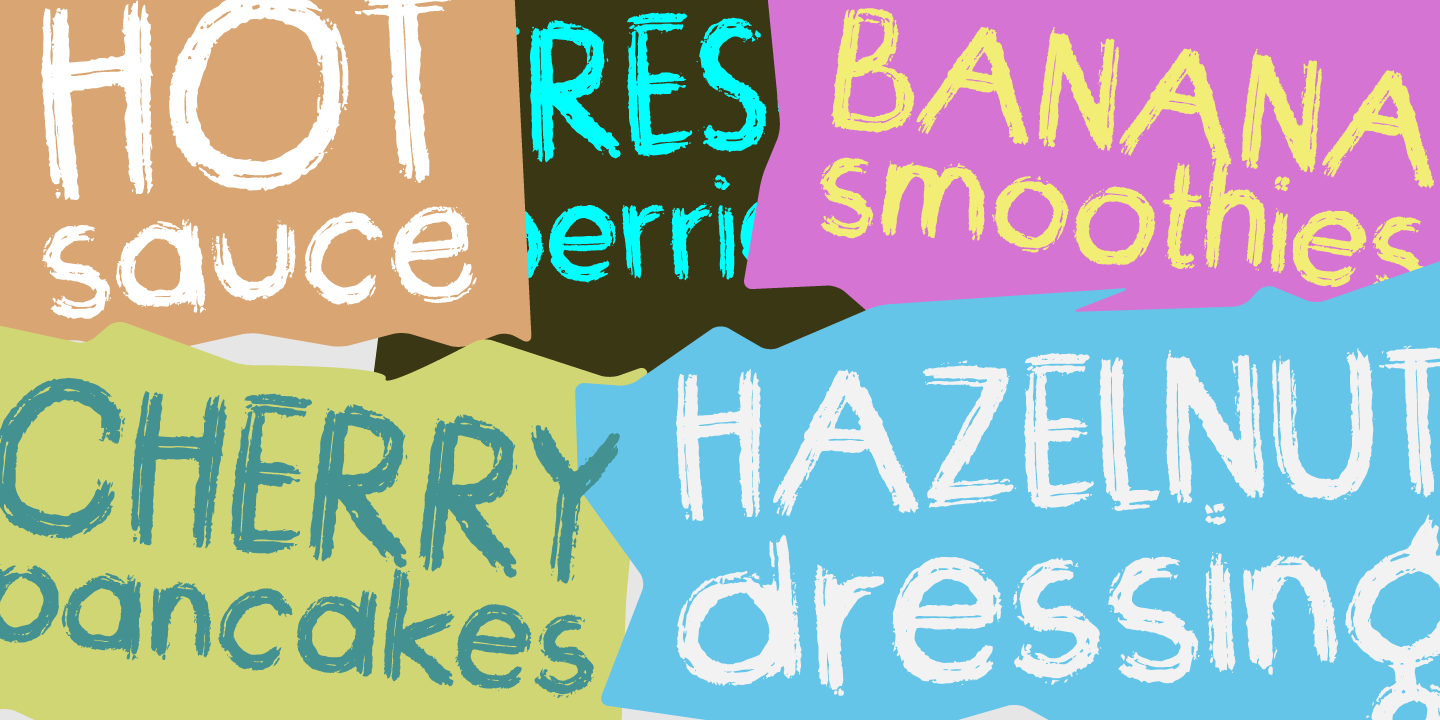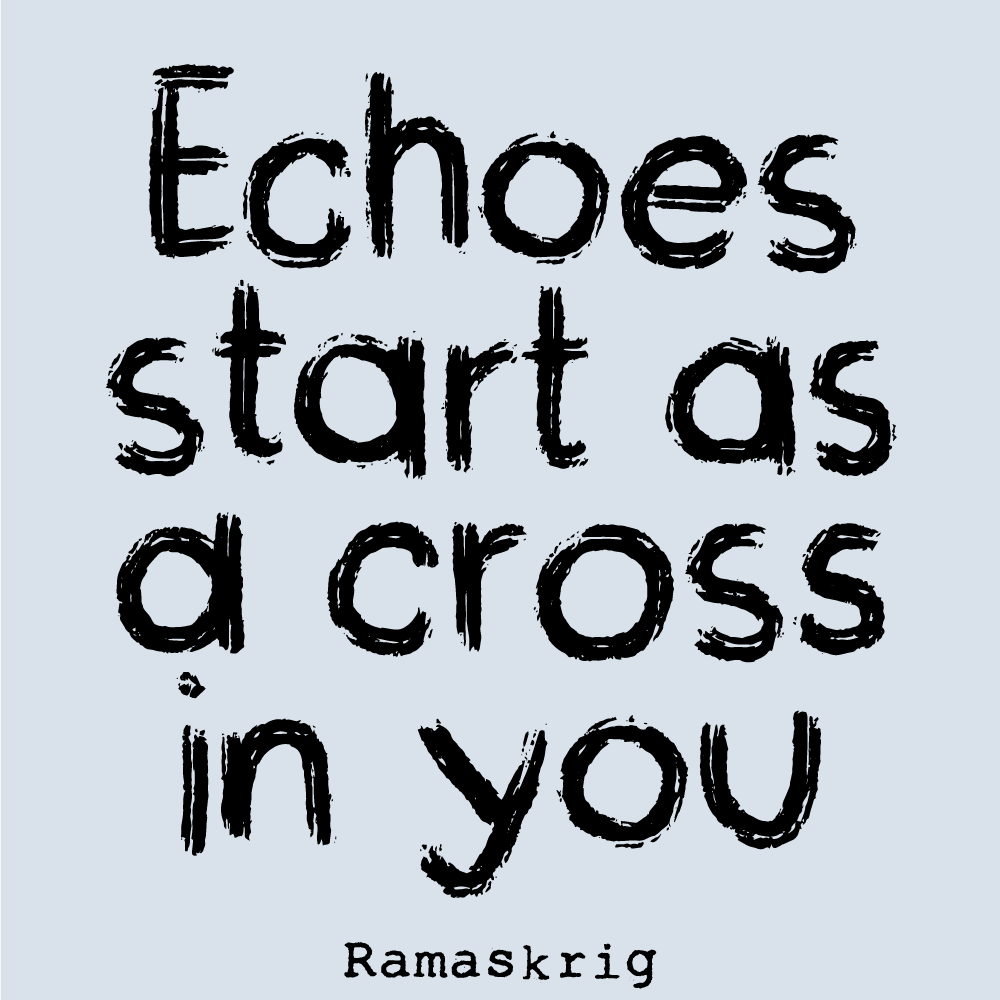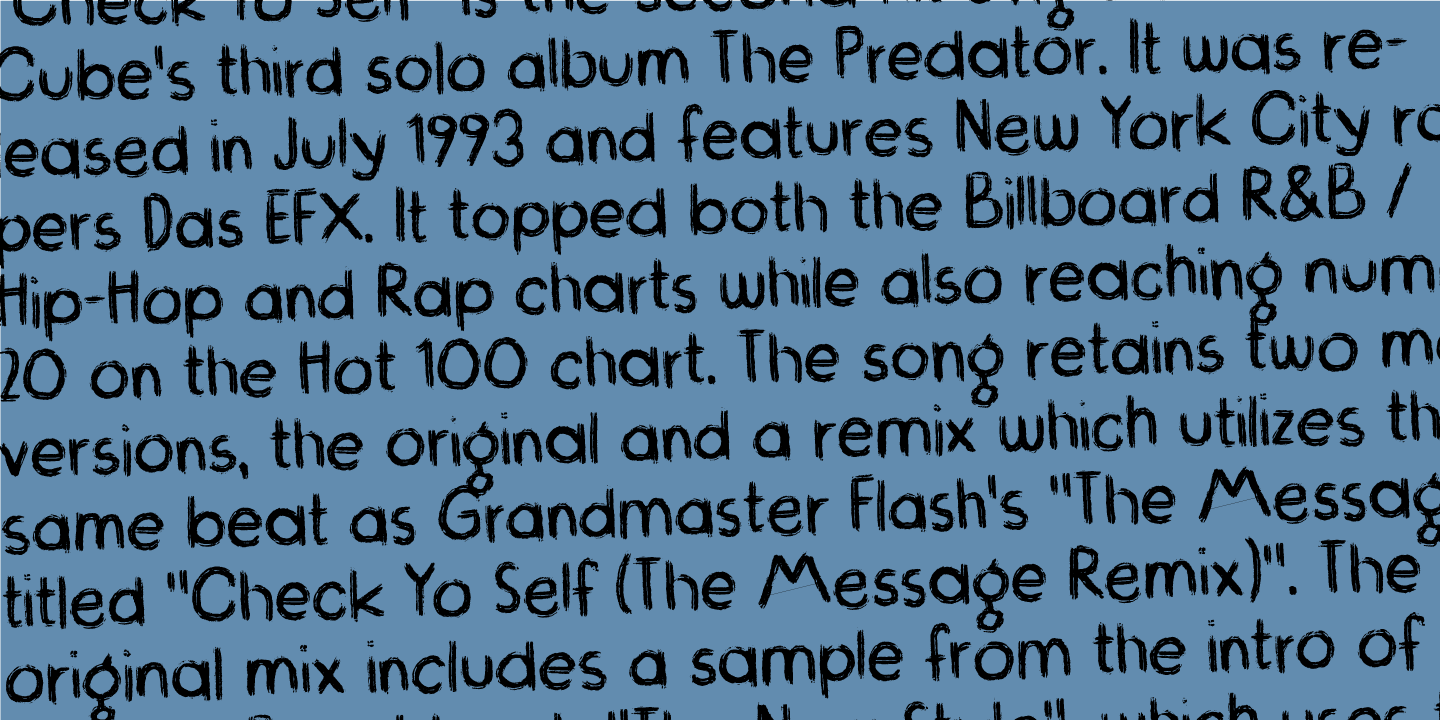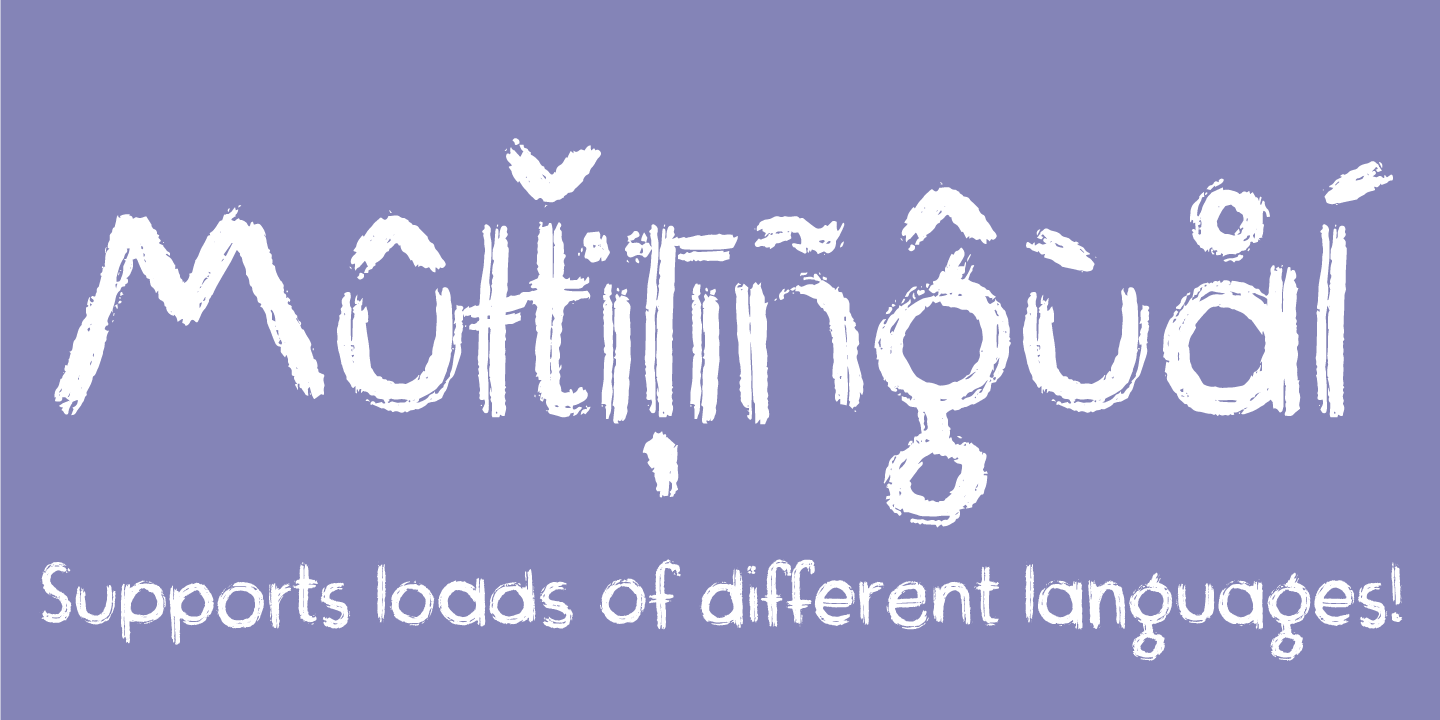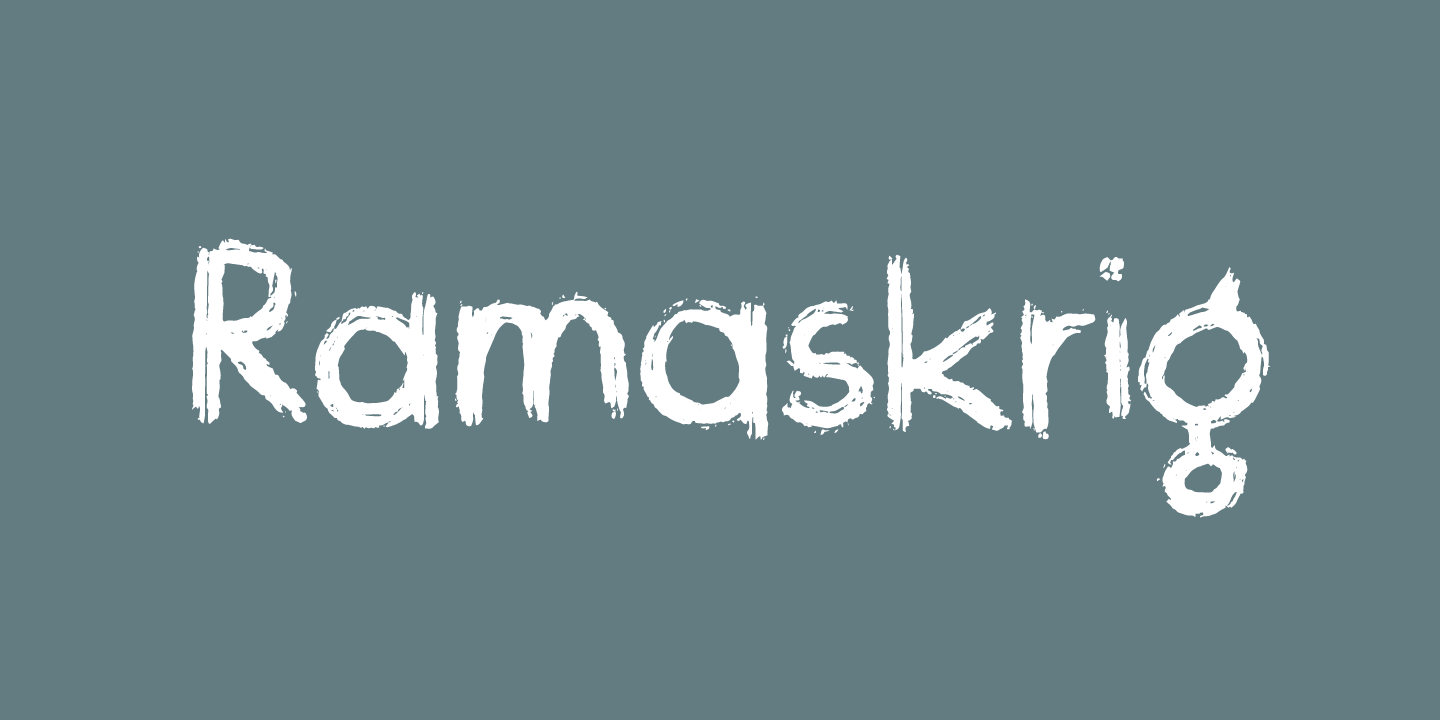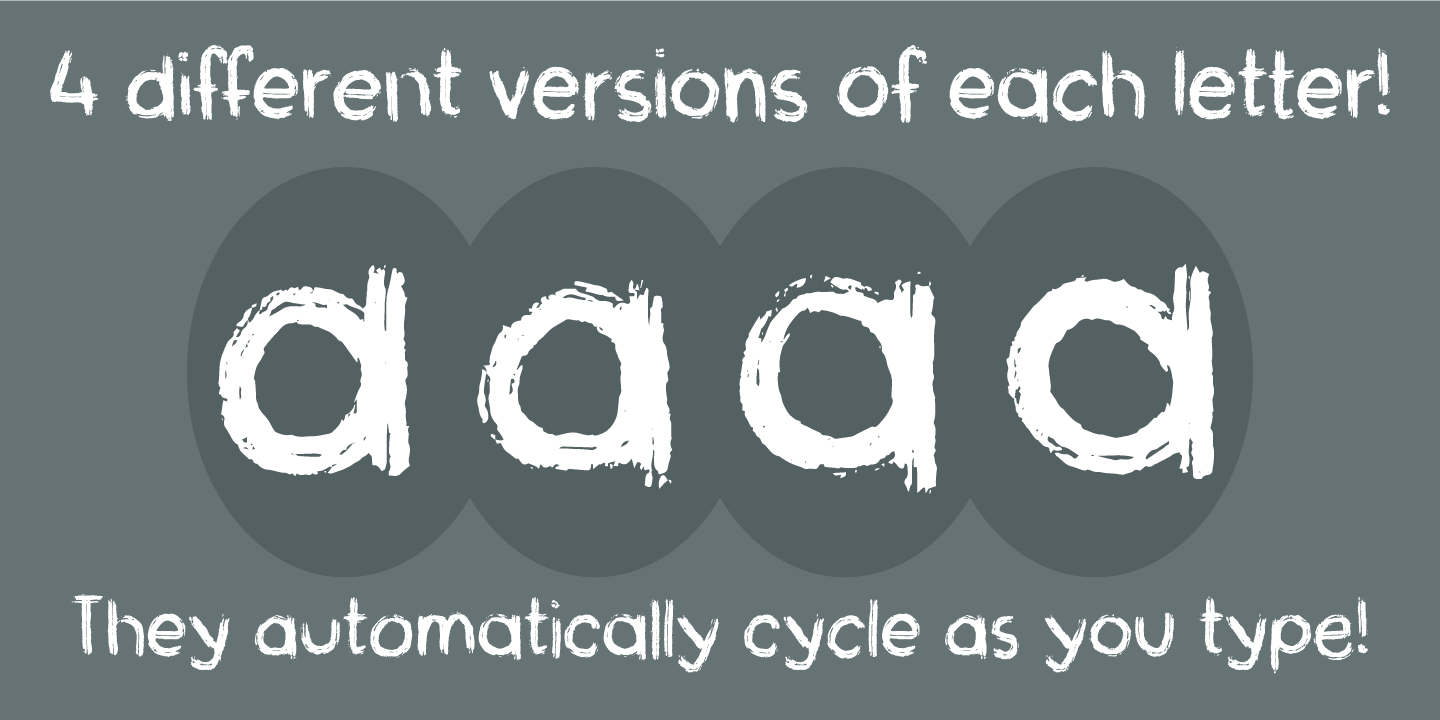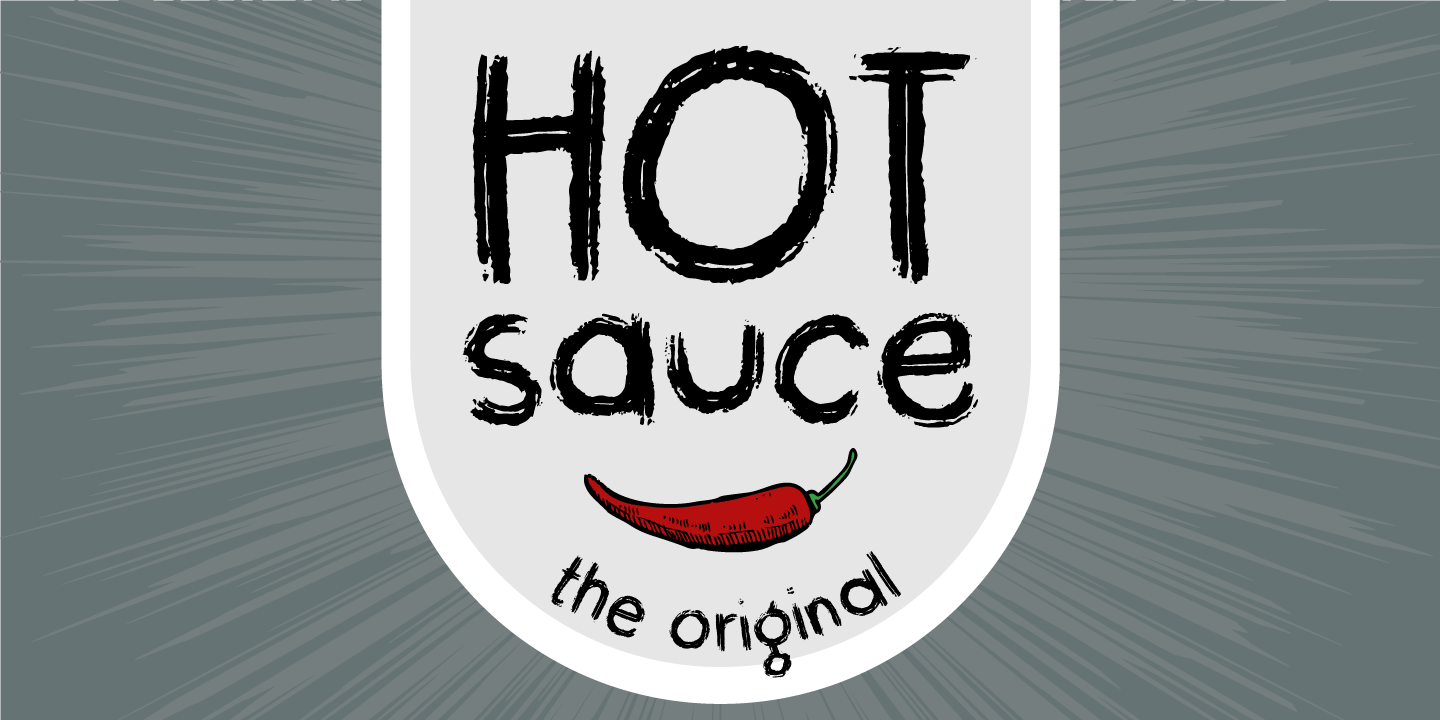
Ramaskrig
Interesting script font with lovely crunchy details - comes with multilingual support and contextual alternates with 4 different versions of each letter, and they cycle automatically as you type!